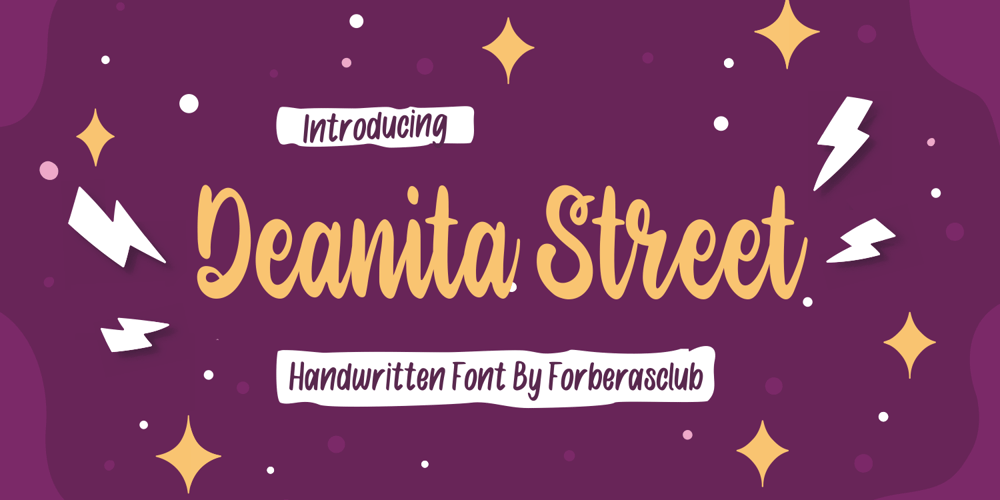
Deanita Font Family was designed by ANGGI HERMAWAN and published by Forberas Club. Deanita contains 1 styles and family package options. Deanita Street is unique script font with handrawn style. Very nice if you use it for wedding or story about love.